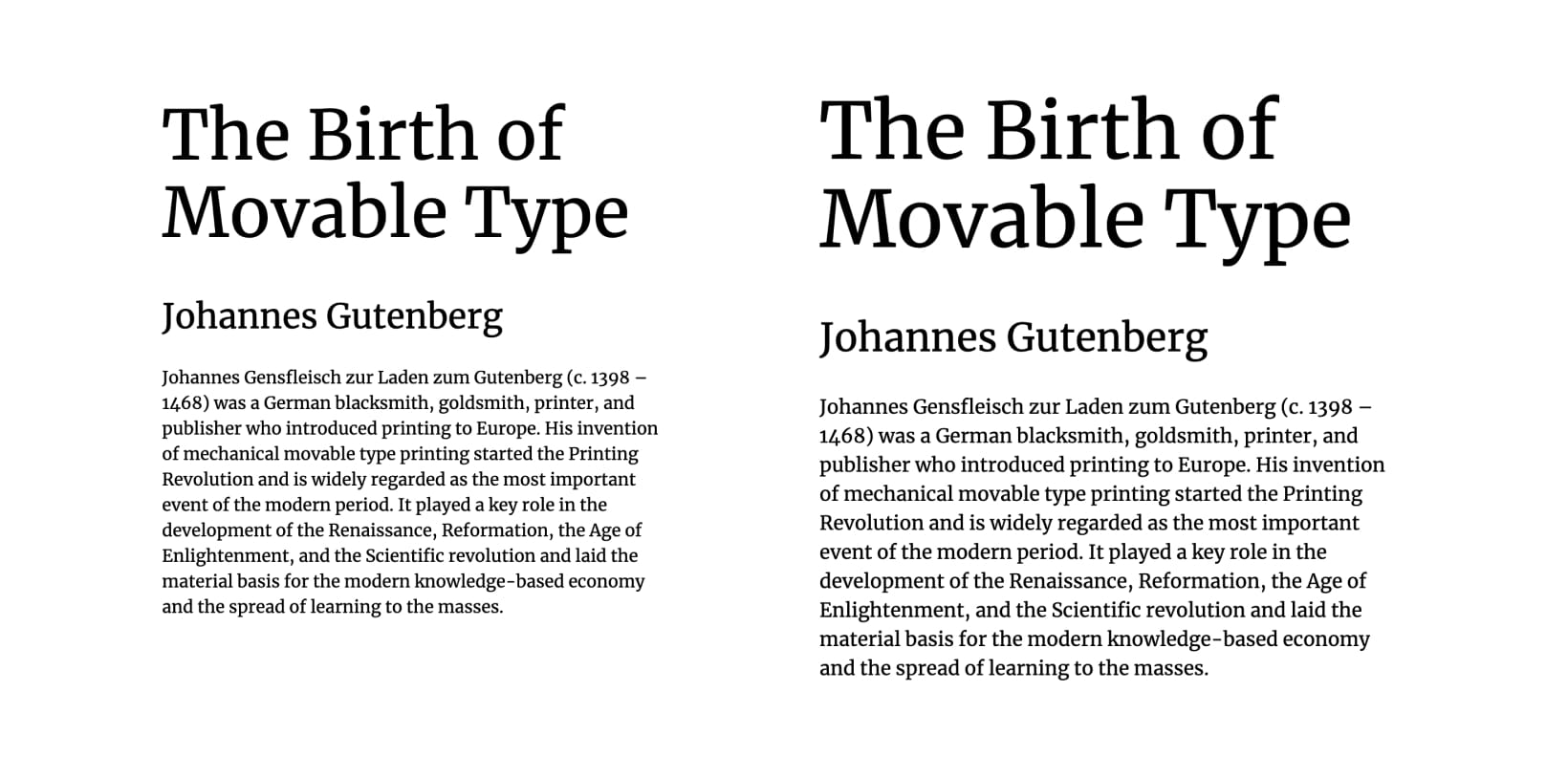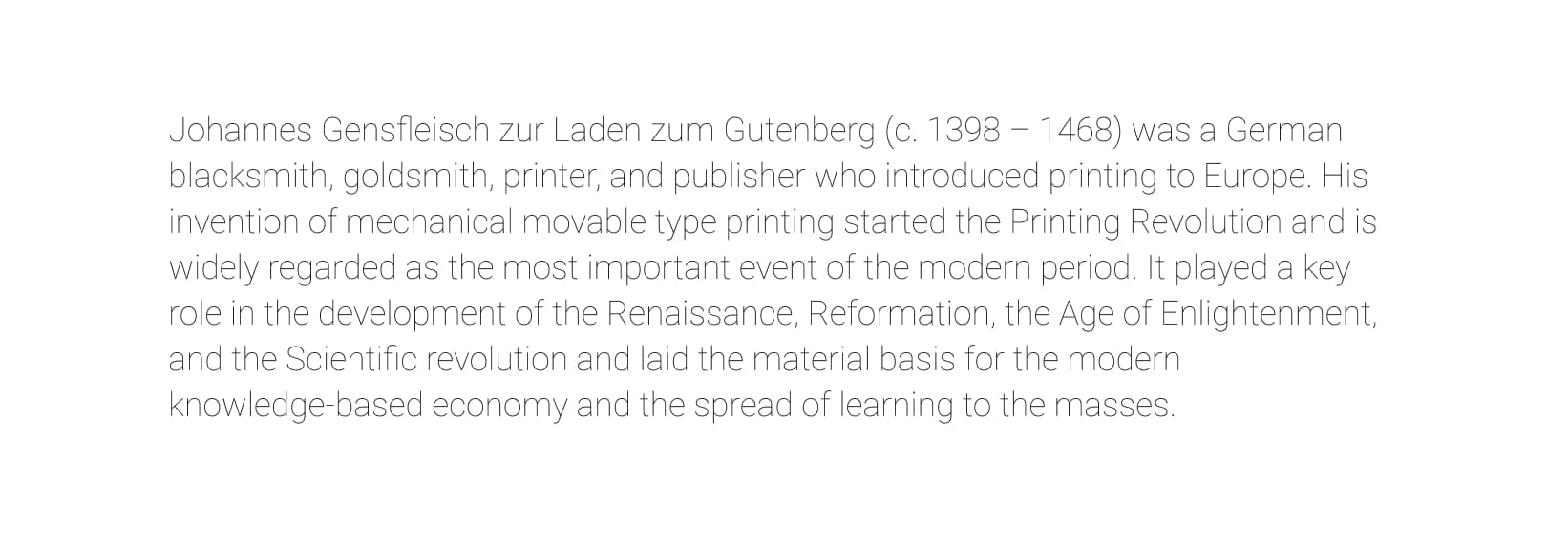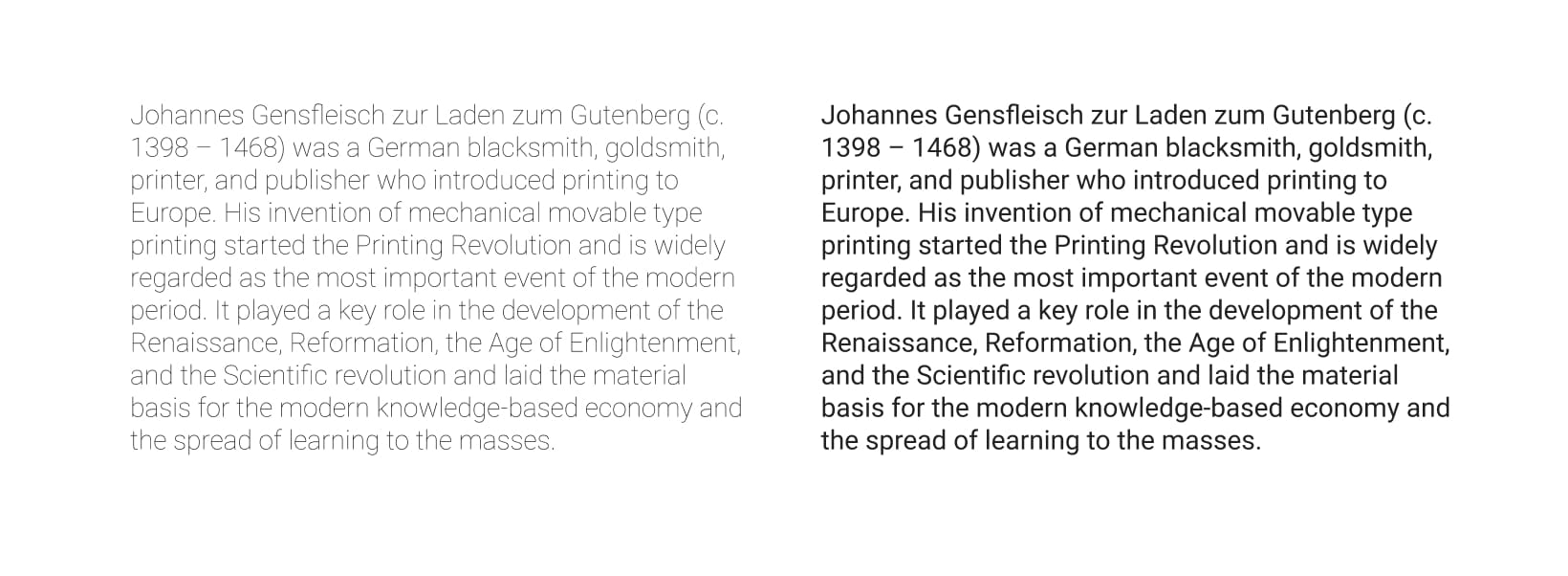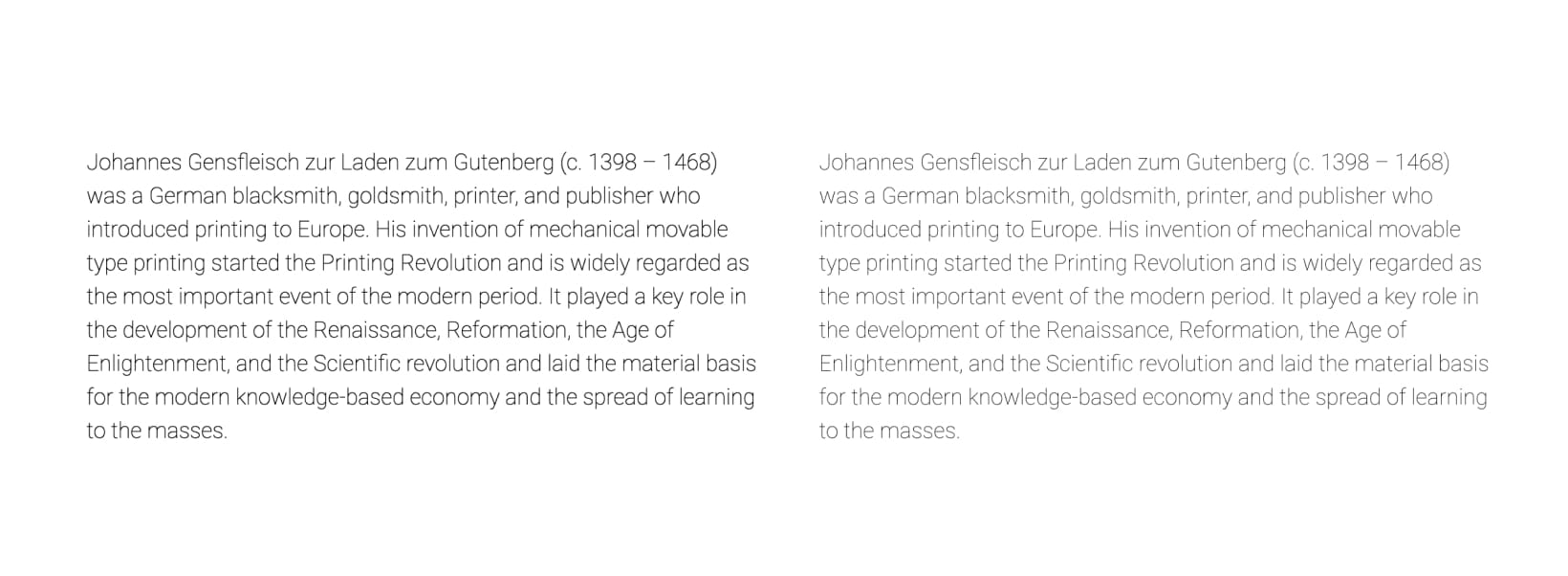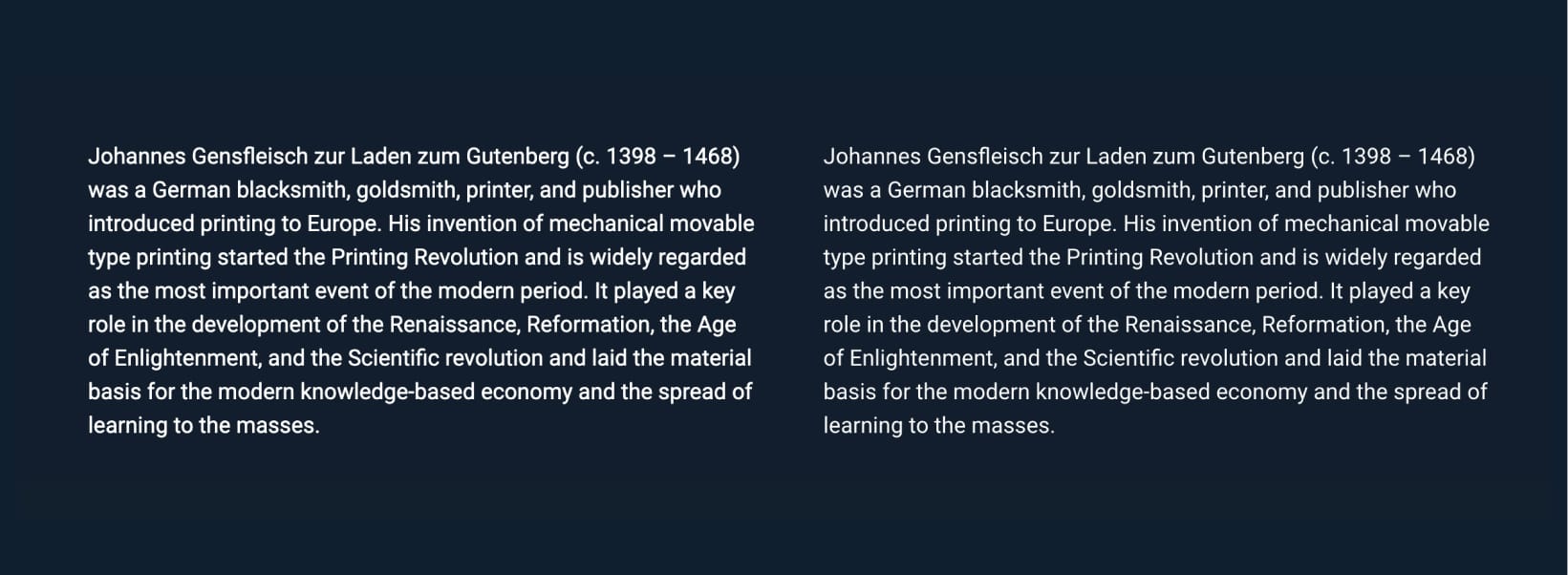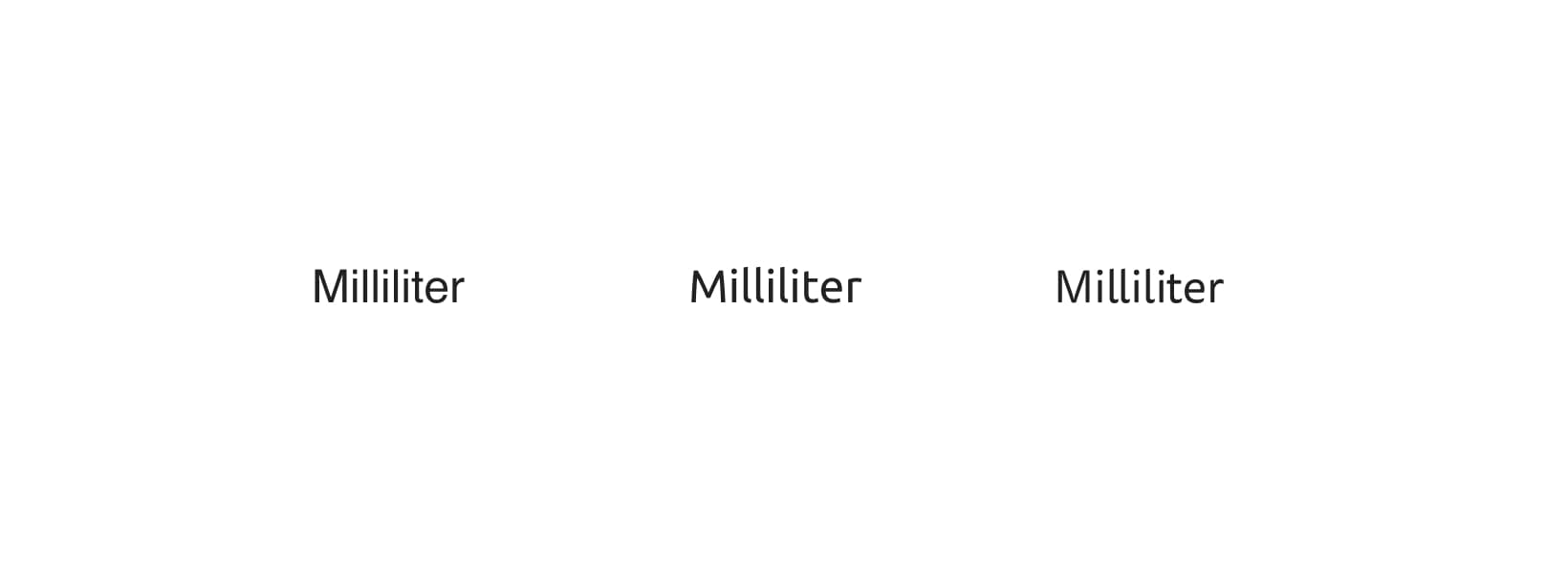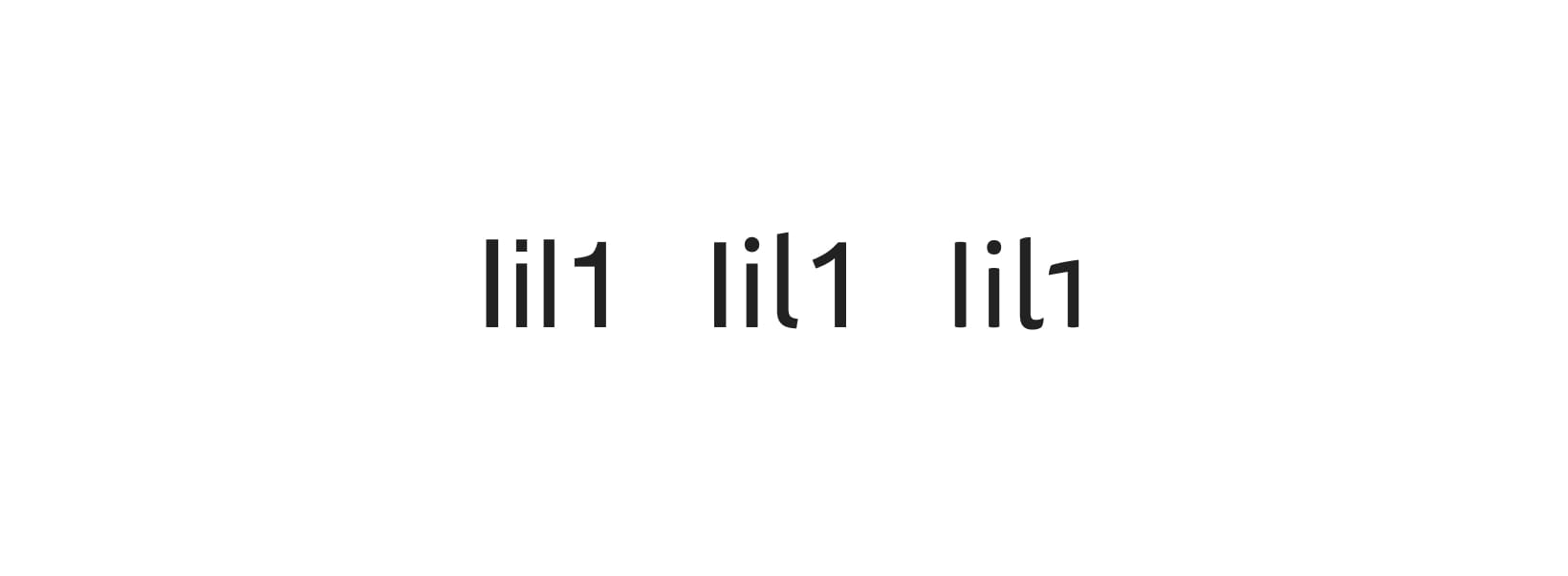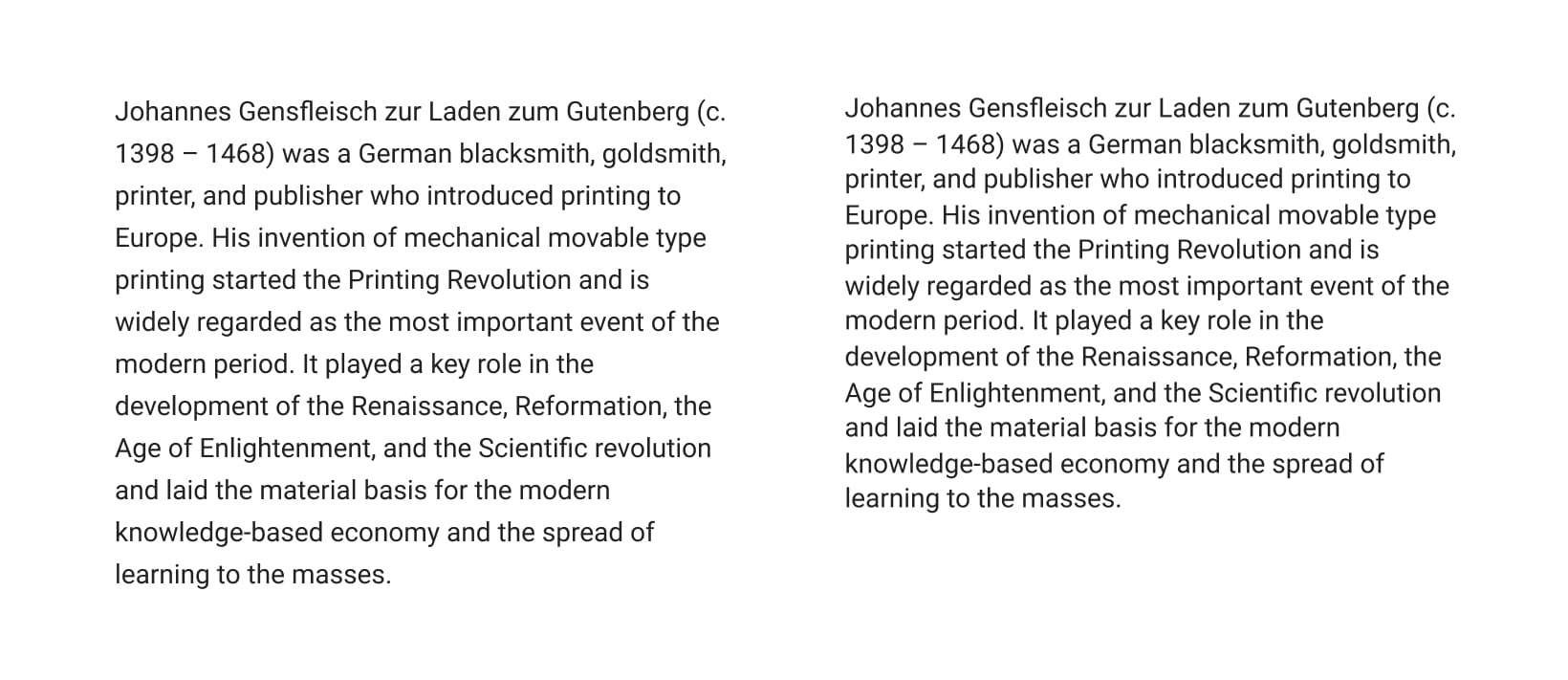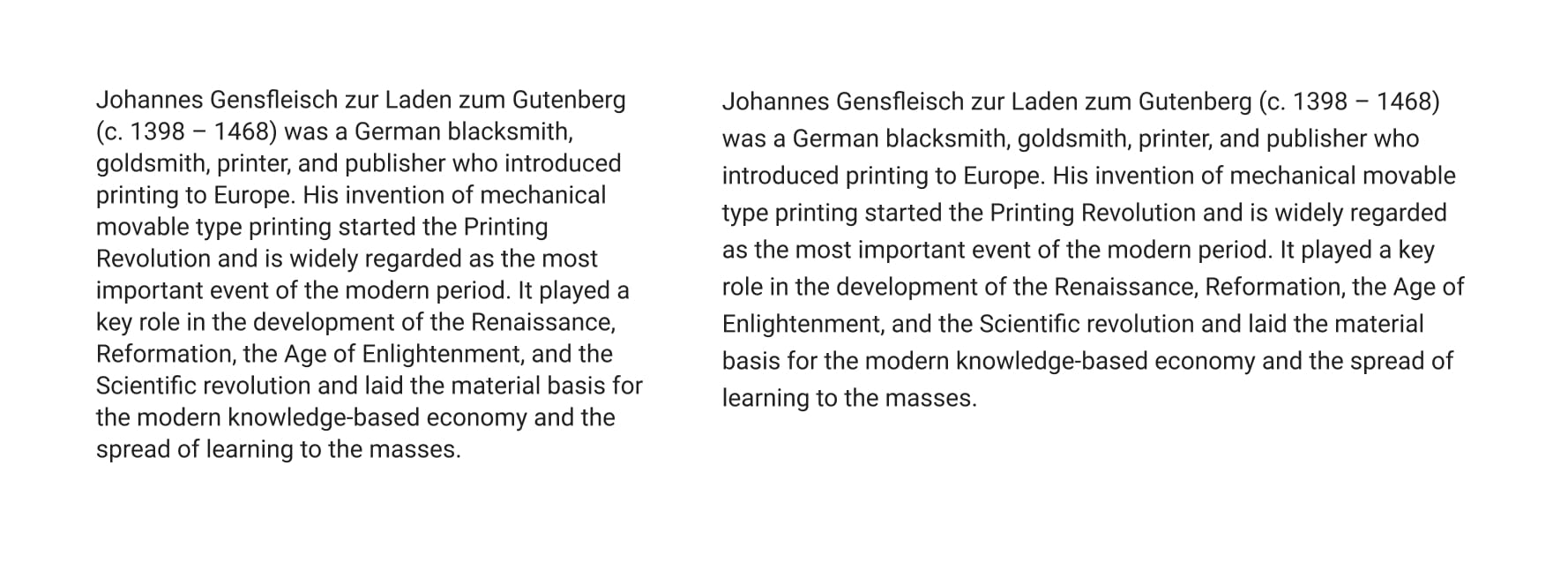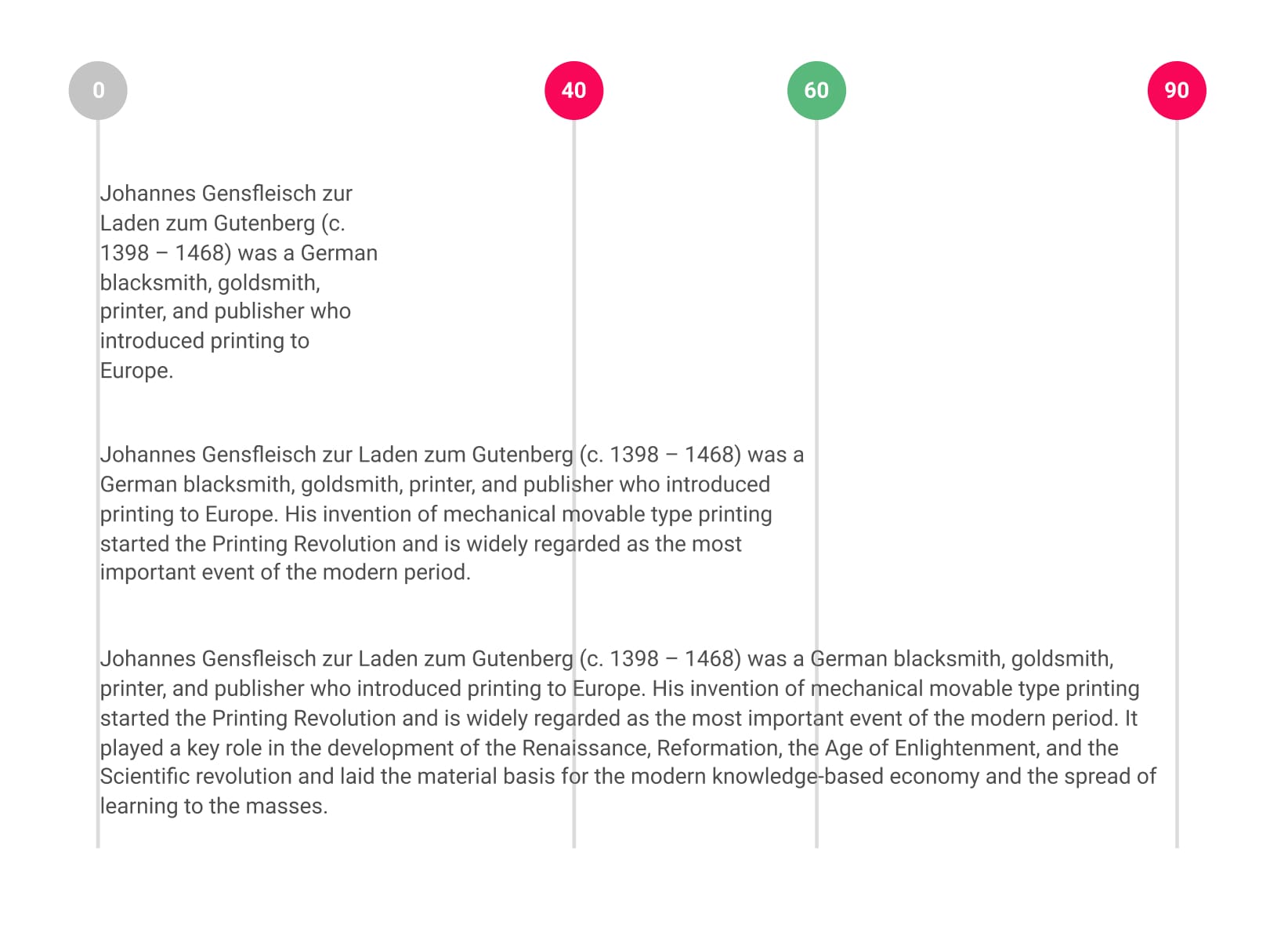
I wrote about fluid web typography in last month’s blog post and I realised that a lot of the popular implementation techniques come with accessibility issues. So I wanted to go back and revisit the basics and the best practices of accessible web typography.
I think it’s safe to claim that a large part of website accessibility falls on typography, after all, web still is 95% typography[^1]. Viewers come to a website to read its content or just to find specific information they’re looking for. And most of that information and most of the content is communicated through text. This is one of the few constants on the web that hasn’t changed through the years. So how do we make sure that everyone can read the content of our website? And by everyone, I mean absolutely everyone. This includes people with impaired vision, reading disorders, colour blindness or anything that can often prevent them from reading comfortably.
Designers and developers of websites often forget about these people or come up with excuses like “blind people don’t drive cars so they don’t need to shop for one on our website”. This was literally what someone said when I worked for a huge online car marketplace company back in the UK. This is a closed-minded, egoistic and a disgusting comment. Web was created for everyone and it’s our job to make it accessible to everyone. Here are a few of the best practices of accessible web typography.
1. Set your base font size in relative units
What is base font size, how do we set it and how do we then use it? Let’s start with the what. Base font size is simply the font size that all other font sizes will be derived from. If we correctly use relative units of course (more on that later). We set it by assigning a font size to the html in CSS. It’s as simple as the following:
html {
font-size: 100%; // In most browsers, this defaults to 16 pixels
}
Then we can use other relative units (em or rem) to set font sizes for other elements. This is crucial because it means that changing the base font size will also change all other font sizes. Let’s take a look at an example. Our base font size is set to 100%, let’s set the heading 1 size to 4rem and heading 2 to 2rem (the result of this can be seen on the left side of FIG 1).
h1 {
font-size: 4rem;
}
h2 {
font-size: 2rem;
}
But now, we want to adjust the font sizes for larger screen widths so we introduce a media query. We can increase all font sizes by adjusting the base font size alone. We increase it to 112.5% and our two headings font sizes increase as well (right side of FIG 1).
html {
font-size: 100%; // In most browsers, this defaults to 16 pixels
@media (min-width: 768px) {
font-size: 112.5%; // = 18 pixels in most browsers
}
Please note that I use SCSS for all my code examples that‘s why I can nest the media query like that.
<strong>FIG 1</strong>: Base font size and heading sizes as we originally set them (left) and after the increase of the base font size (right). Heading 1 and 2 are still set to <code>4rem</code> and <code>2rem</code> respectively.
FIG 1: Base font size and heading sizes as we originally set them (left) and after the increase of the base font size (right). Heading 1 and 2 are still set to 4rem and 2rem respectively.
In the example on the left, the body font size is 16px (browser default), heading 1 is 64px (4 × 16) and heading 2 is 32px (2 × 16). In the example on the right, the body font size is 18px (changed it to 112.5% with a media query), heading 1 is 72px (4 × 18) and heading 2 is 36px (2 × 18). Rem units are especially useful and very clear to use in such cases because they always relate to the base font size.
Take a look at this example on CodePen and try resizing the screen. That’s how the base font size works, but now let’s take a look at why it’s important for accessibility.
Base font size and accessibility
Why is it so important to set the base font size in relative units? I have to be honest, for a long time, I thought: what’s the point of setting the base font size to 100%? It usually just defaults to 16px anyway, so why not just set it to that? I later learned that it’s for one simple reason—the browser default font size. There’s still a lot of bad advice when it comes to setting the base font size out there. Take a look at the following:
Generally speaking (and there are a lot of exceptions) the most common best practice is to set the font-size on the body using px (CSS pixels), and then set all the other elements to em, which will be relative to the body size (1em = 100% of the inherited size)[^2].
—Adam Wood
This is the opposite of what we must do! Do not set your base font size in pixels. Doing so will overwrite the browser’s default font size. But what exactly is the browser’s default font size? In the code examples above we set our base font size to 100% and I wrote a comment next to it: In most browsers, this defaults to 16 pixels. That’s what I mean when I say browser’s default font size. But here’s the tricky part. Yes, most browsers agreed on the default size of 16 pixels, but the user can change that. Let’s say someone has an impaired vision and sets their browser’s default font size to something larger. Setting the base font size in our CSS to pixels will overwrite their browser default font size setting. Instead of seeing most of the text at a larger font size, we now force them to read it at 16 pixels size. That’s because pixels are an absolute unit, not a relative one. To correct the instructions for setting the base font size by Adam Wood from above, let’s rewrite them like this: